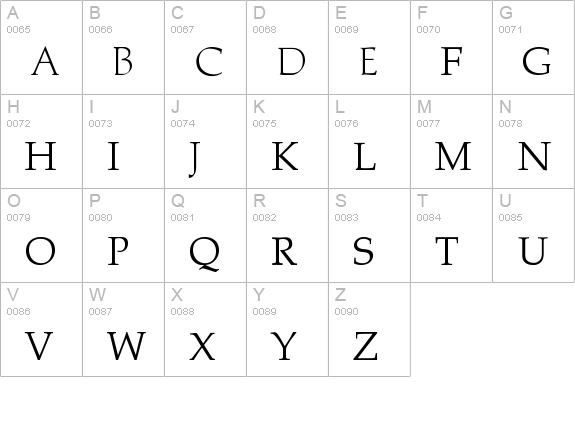
HollenBeck Font Details
HollenBeck font is a versatile and modern typeface that exudes elegance and sophistication. With its clean lines and stylish curves, this font is perfect for a wide range of design projects, from branding to editorial design. The sleek and contemporary look of HollenBeck font makes it a popular choice for both print and digital applications. What sets HollenBeck font apart is its unique combination of classic elegance and modern flair. Whether you're designing a sleek logo for a high-end brand or creating eye-catching headlines for a magazine spread, this font will add a touch of sophistication to your work. Best of all, HollenBeck font is available for free download at FontsMarket.com. So you can easily add this stylish typeface to your font collection without breaking the bank. Don't miss out on the opportunity to elevate your design projects with the timeless beauty of HollenBeck font.